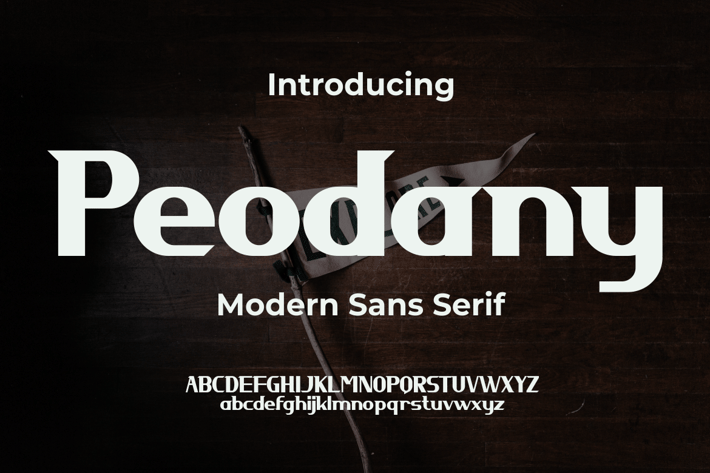
Introducing our new product Peodany Font - Modern Font
Peodany Font - Modern Font is a bold and authentic display font. The font is suitable for any branding project like logo, t-shirt printing, esport, and many more. outstanding in a wide range of contexts.